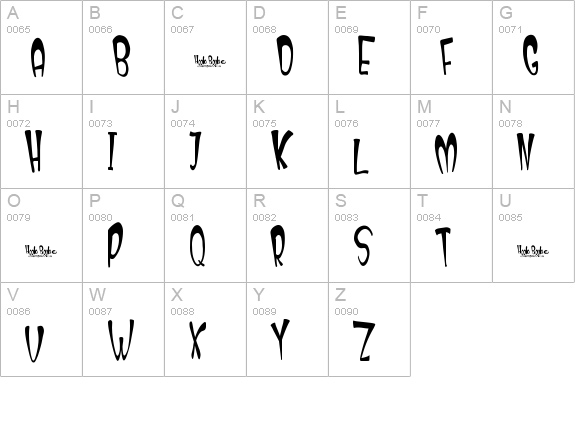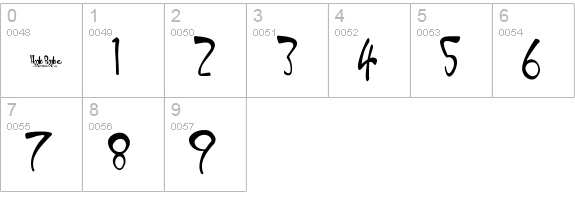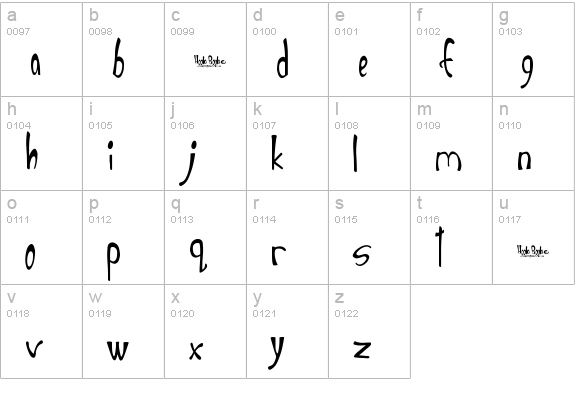
HHoola Font Details
HHoola font is a beautifully crafted typeface that exudes elegance and sophistication. With its smooth curves and modern design, HHoola is sure to make your projects stand out. This versatile font is perfect for a wide range of design applications, from branding to editorial design. The best part? HHoola font is available for free download at FontsMarket.com. Now you can elevate your designs without breaking the bank. Don't miss out on this fantastic opportunity to add a touch of style to your projects with the stunning HHoola font. Download it today and let your creativity flow!